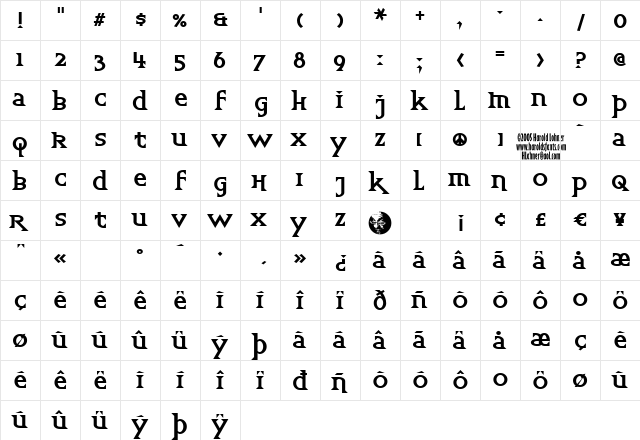
UpbeatDemi Regular
Design Context for UpbeatDemi Typeface
UpbeatDemi is a composed and adaptable typeface that performs quietly and consistently across a wide range of design contexts.